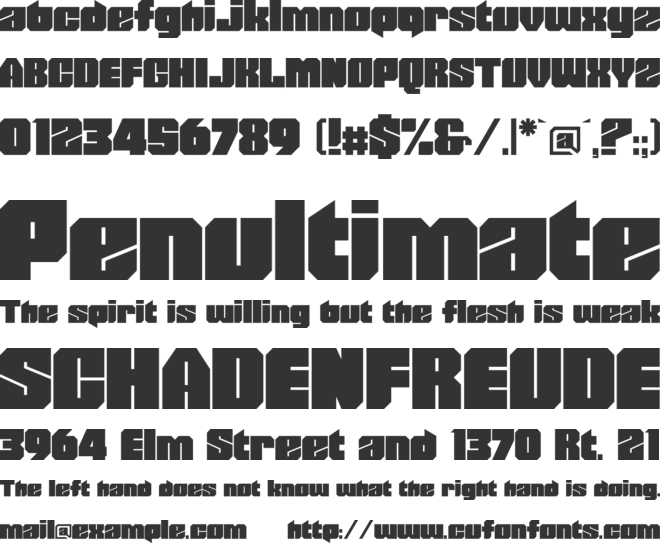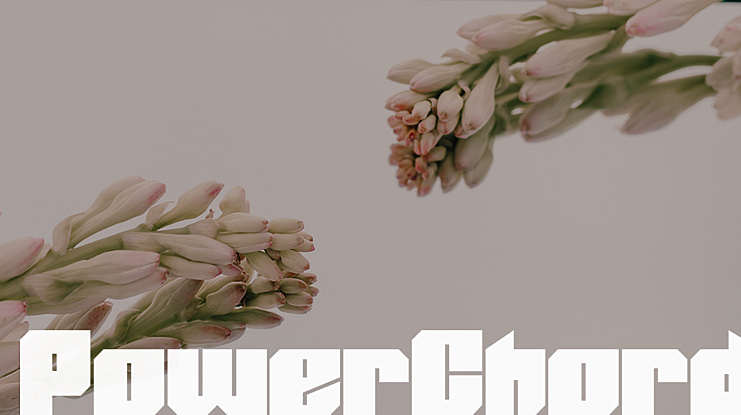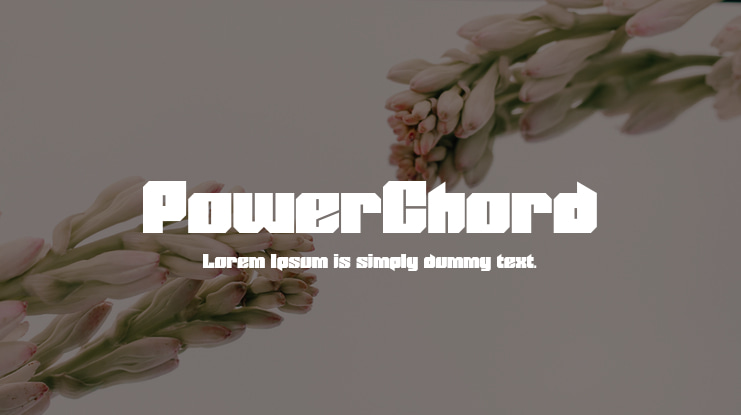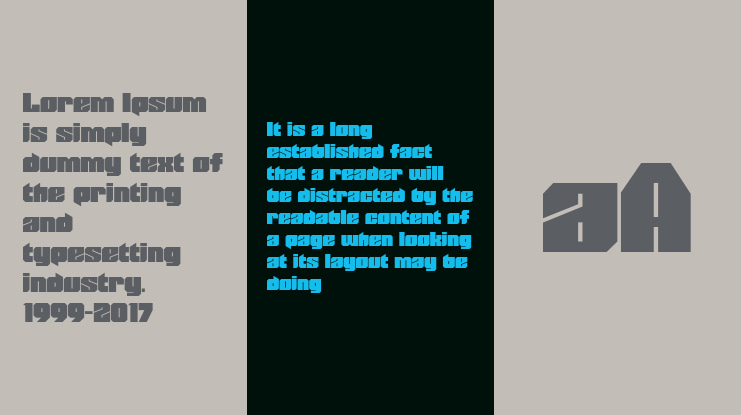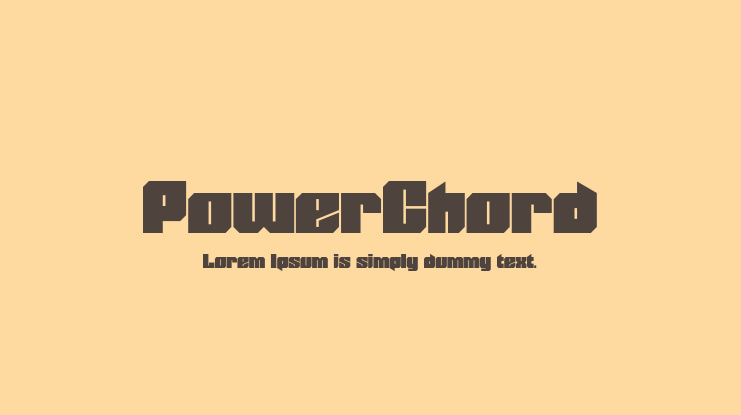
PowerChord Font Family
Diego de Oliveira
Sadana Square (previously known as the Sanidana) is a libre geometric sharp-squared typeface inspired from the original Sadana plastic in the 90s, created using with FontForge.